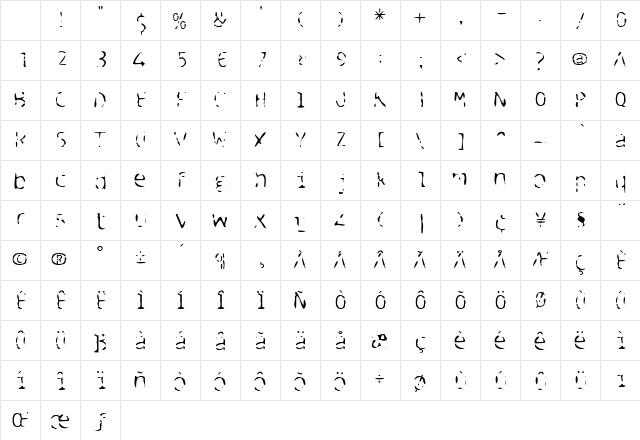
Complete BlueSpent Medium glyph index. Displaying only characters natively supported by BlueSpent Medium font.
BlueSpent is a composed and adaptable typeface that performs quietly and consistently across a wide range of design contexts.